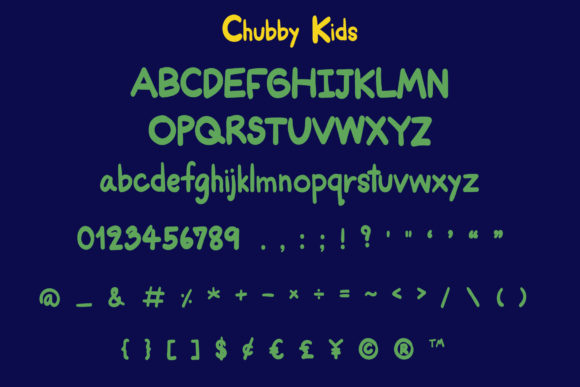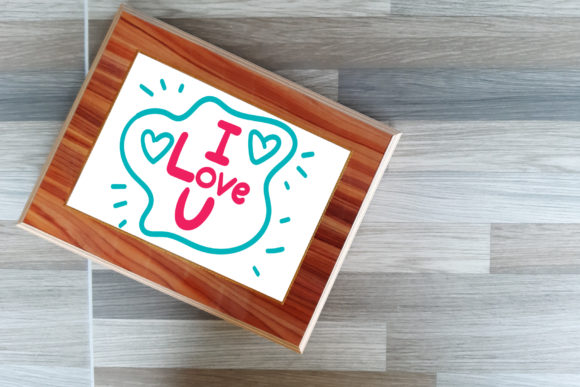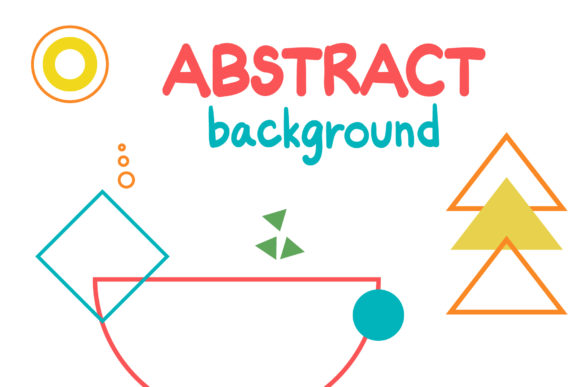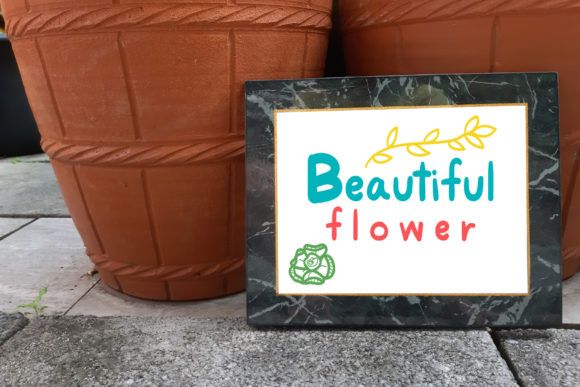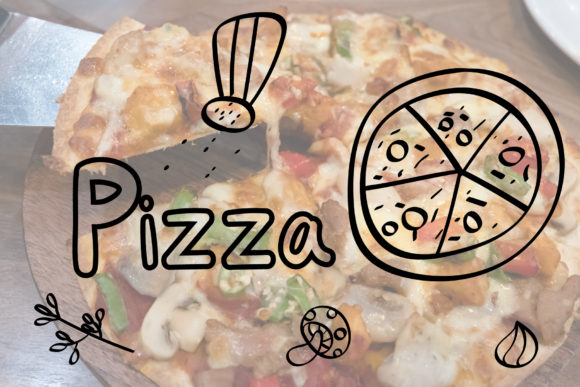
Introducing Chubby Kids Font: The Ultimate Display Font for Fun and Creative Projects
Are you tired of using the same old fonts for your kids’ projects or school assignments? Look no further than Chubby Kids Font, a delightful display font that embodies fun, quirkiness, and authenticity. This enchanting font is perfect for designers, crafters, and parents who want to add a touch of playfulness to their creative projects.
What Makes Chubby Kids Font So Special?
Chubby Kids Font is a one-of-a-kind display font that is sure to turn any creative idea into a true standout. Its childlike playfulness and quirky charm make it perfect for kids’ projects, school assignments, and even branding and advertising campaigns targeting a younger audience. With Chubby Kids Font, you can add a dash of fun and personality to your designs, making them truly unforgettable.
Key Features of Chubby Kids Font
• Fun and Playful Design: Chubby Kids Font features a unique and playful design that is sure to capture the attention of your audience.
• Quirky and Authentic: This font embodies quirkiness and authenticity, making it perfect for creative projects that require a personal touch.
• Display Font: Chubby Kids Font is a display font, making it perfect for headlines, titles, and other prominent text elements.
• Kids and School Projects: This font is ideal for kids’ projects, school assignments, and other educational materials.
How to Use Chubby Kids Font
Using Chubby Kids Font is easy and straightforward. Here are a few tips to get you started:
• Pair it with Other Fonts: Pair Chubby Kids Font with other fonts to create a unique and visually appealing design.
• Use it for Headlines and Titles: Use Chubby Kids Font for headlines and titles to add a touch of fun and personality to your designs.
• Add Color and Texture: Add color and texture to your designs to make them truly stand out.
Benefits of Using Chubby Kids Font
There are many benefits to using Chubby Kids Font, including:
• Increased Creativity: Chubby Kids Font can help increase creativity and inspire new ideas.
• Improved Engagement: This font can help improve engagement and capture the attention of your audience.
• Unique and Memorable Designs: Chubby Kids Font can help you create unique and memorable designs that stand out from the crowd.
Who Can Benefit from Chubby Kids Font?
Chubby Kids Font is perfect for a variety of designers, crafters, and professionals, including:
• Graphic Designers: Graphic designers can use Chubby Kids Font to add a touch of fun and personality to their designs.
• Crafters: Crafters can use this font to create unique and personalized crafts, such as handmade cards and gift tags.
• Teachers and Educators: Teachers and educators can use Chubby Kids Font to create engaging and interactive educational materials.
• Parents: Parents can use this font to create fun and personalized projects for their kids, such as birthday cards and party invitations.
Author Wanida Toffy
Chubby Kids Font is a unique and playful display font that is perfect for designers, crafters, and professionals who want to add a touch of fun and personality to their creative projects. With its quirky charm and childlike playfulness, this font is sure to turn any creative idea into a true standout. Whether you’re working on a kids’ project, school assignment, or branding campaign, Chubby Kids Font is the perfect choice.
Get Creative with Chubby Kids Font!
So why wait? Get creative with Chubby Kids Font today and turn your ideas into unforgettable designs. With its ease of use, versatility, and playful charm, this font is sure to become a favorite in your design toolkit.